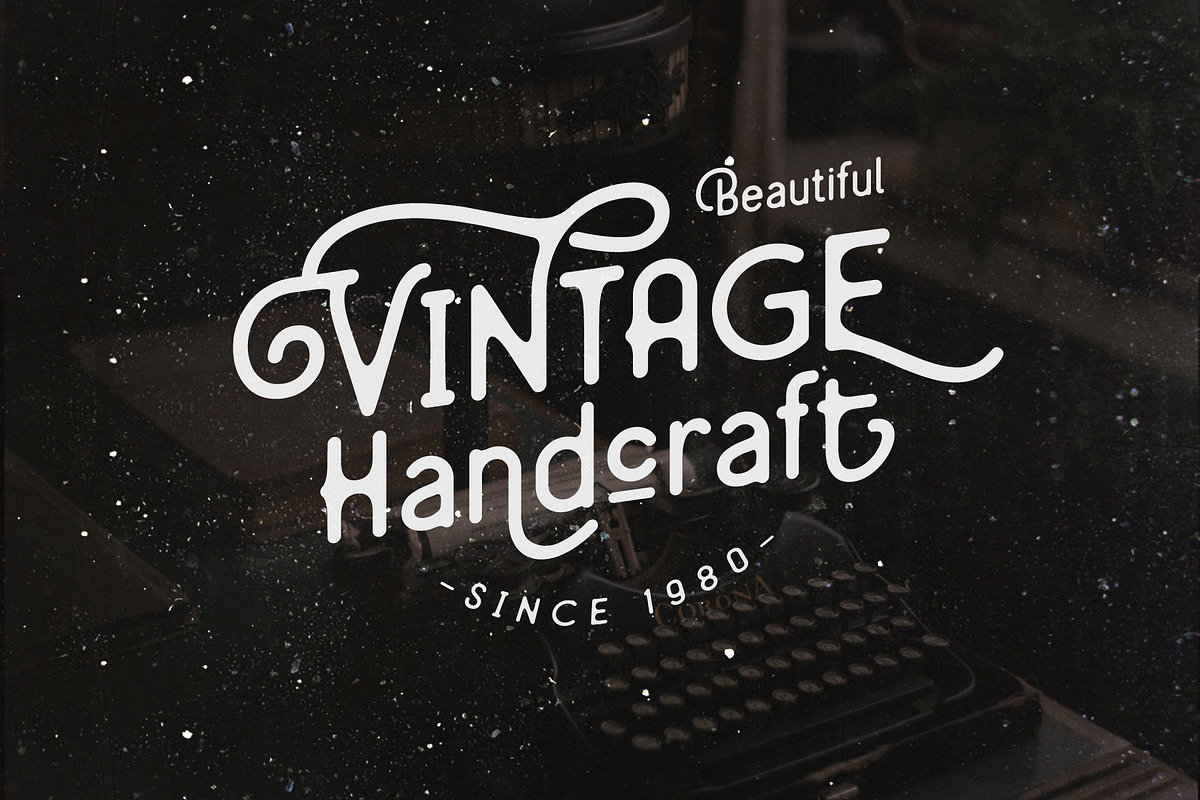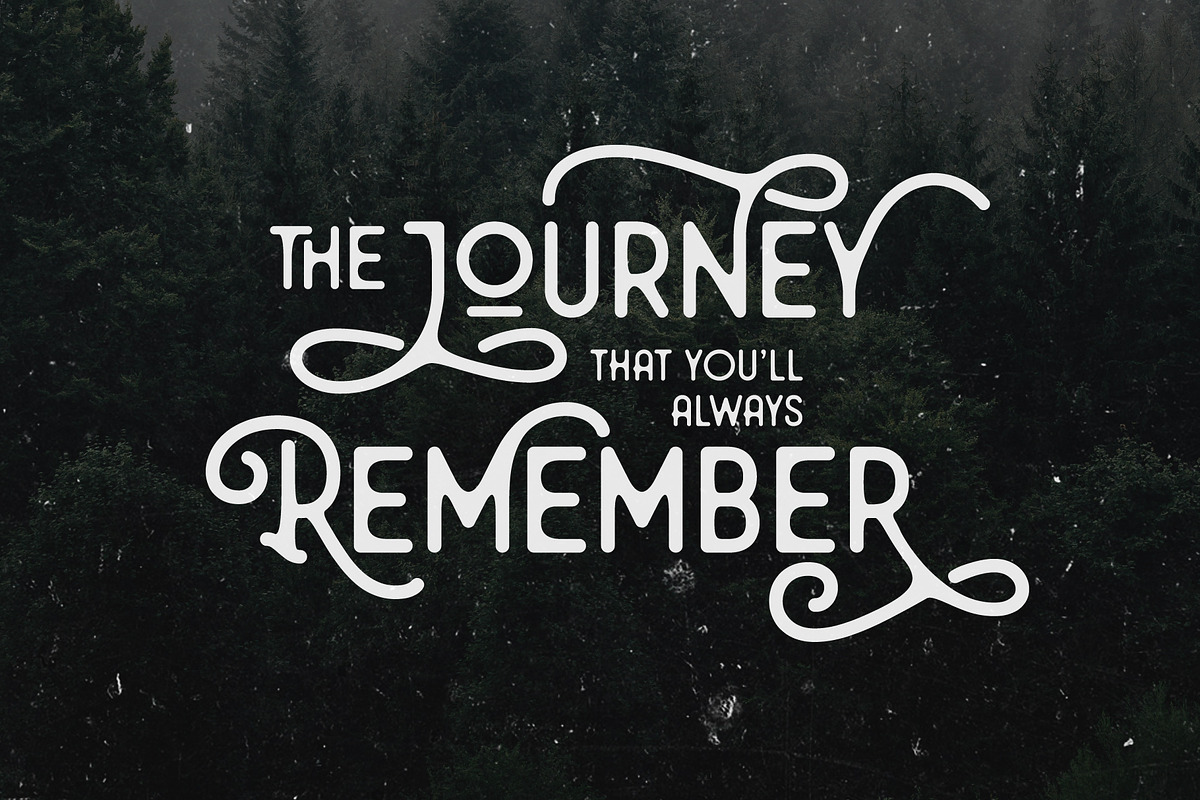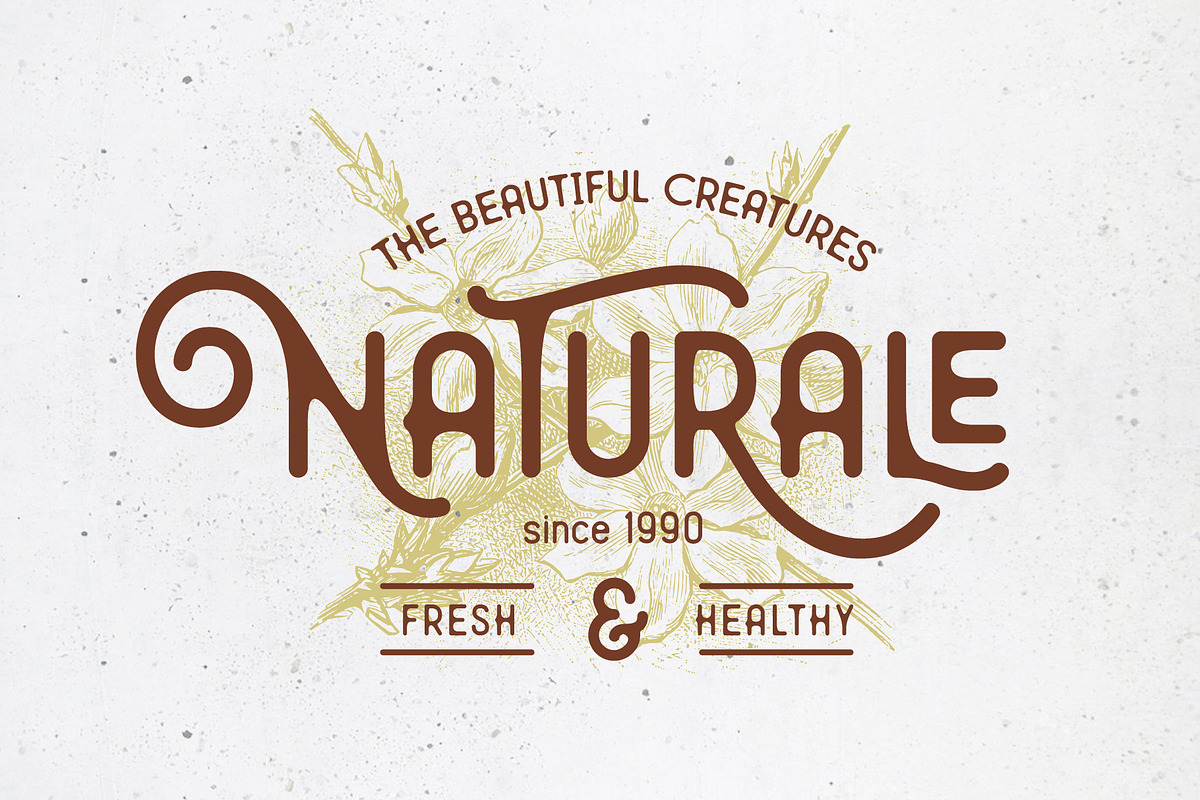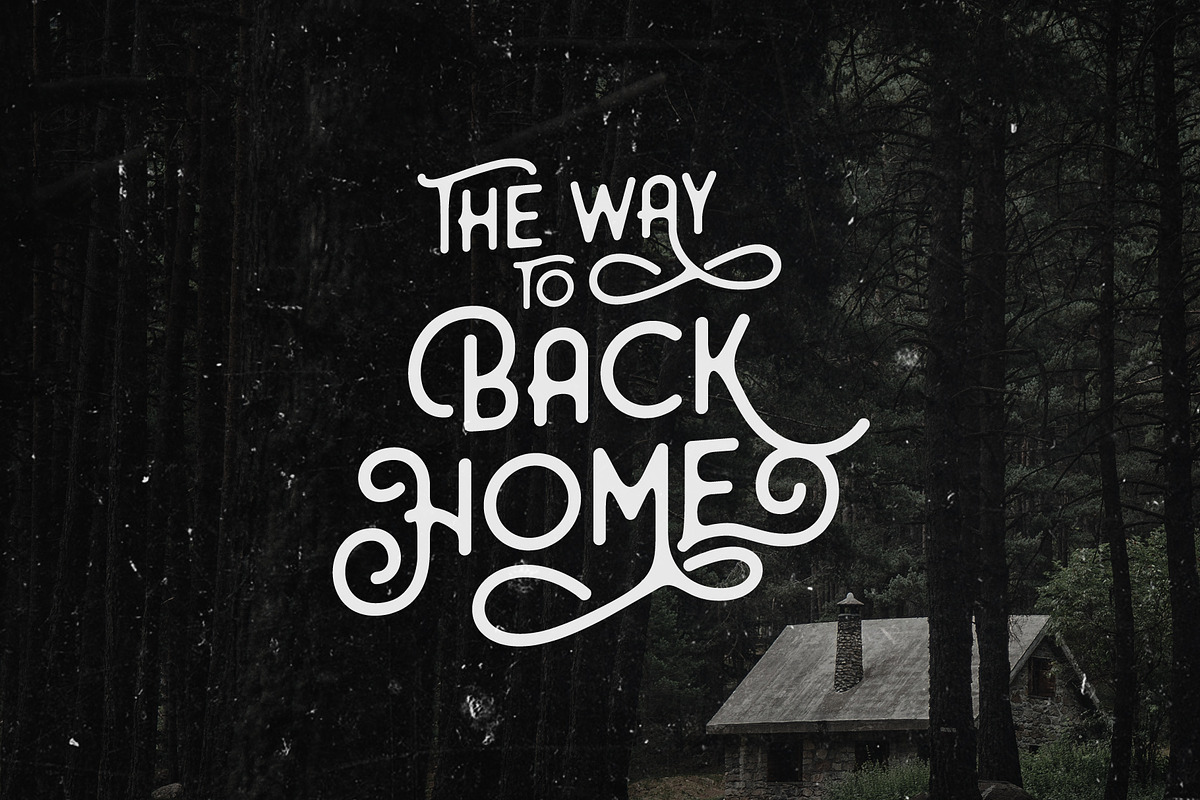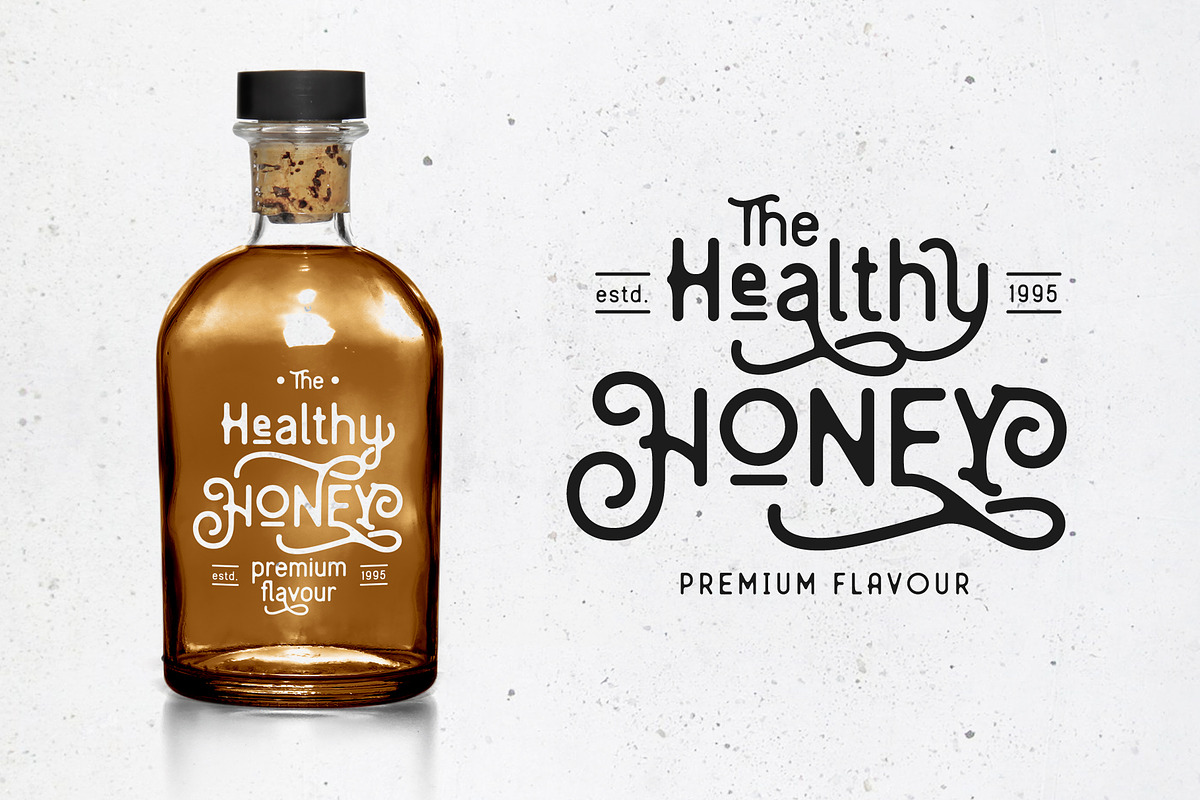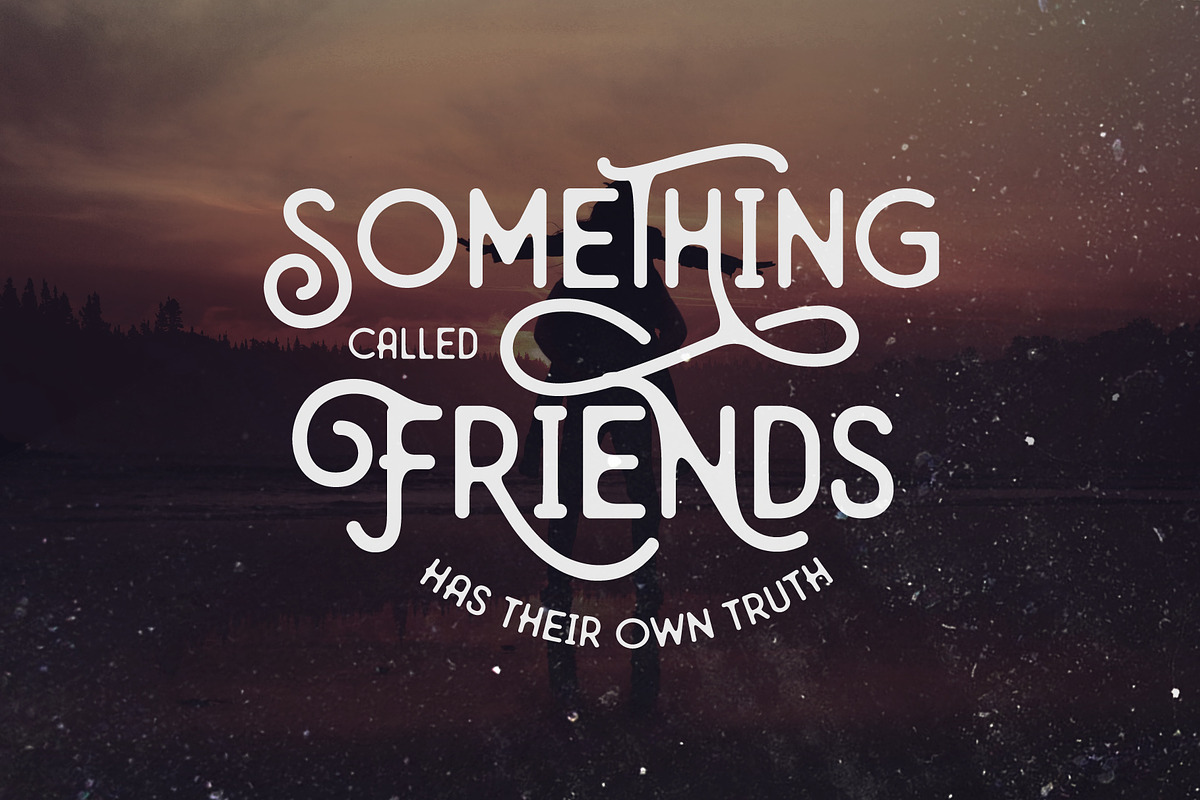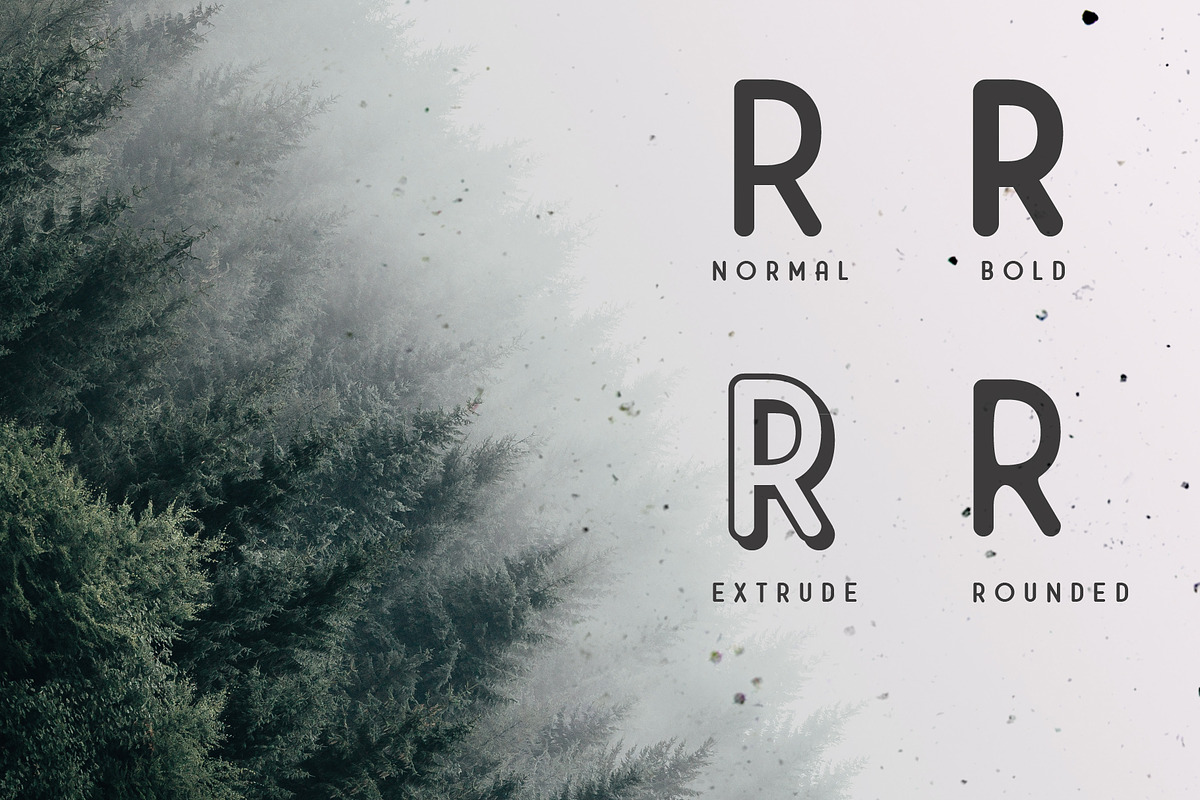
Mirandah | Monoline Font Family
Introducing Mirandah Typeface a rounded vintage monoline. Mirandah is clean modern-vintage display font which inspired from old school letterpress and rounded sans serif shapes.
Mirandah Normal : Looks good for headline, editorial, body text and other formal style.
Mirandah Normal Rounded : With the inky effect, this style is awesome for old school, hipster, vintage, typographic, sign board, logo design and letterpress effect.
Mirandah Extrude: Suitable for craft design, neon light, poster, headline and pop art design.
Mirandah Bold : Suitable for food, kids, logotype and other joyful designs.
Contextual alternates
Multilingual characters : Afrikaans, Albanian, Catalan, Croatian, Czech, Danish, Dutch, English, Estonian, Finnish,French, German, Hungarian, Icelandic, Italian, Lithuanian, Maltese, Norwegian, Polish, Portugese, Slovak, Slovenian, Spanisch, Swedish, Turkish, Zulu
- Stylistic alternates
- Contextual alternates
- Swashes